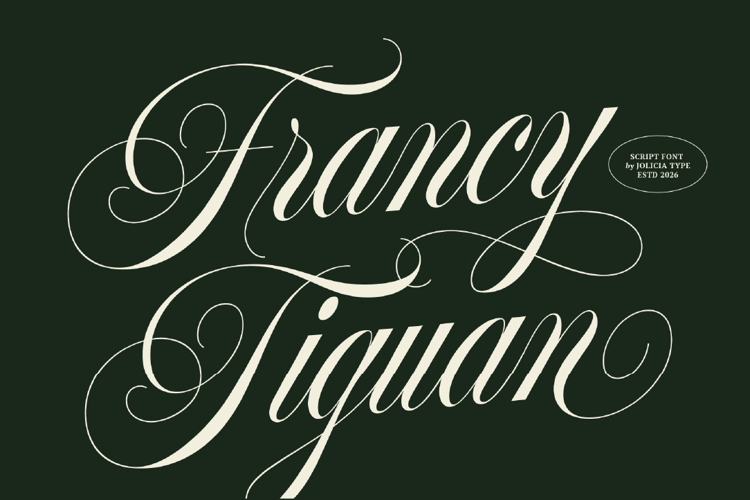
Francy Tiguan Font
Francy Tiguan is a classy script font inspired by elegant
calligraphy and modern luxury aesthetics. Featuring flowing
swashes, graceful curves, and refined handwritten letterforms,
this sophisticated typeface is perfect for wedding invitations,
feminine branding, beauty packaging, fashion editorials, luxury
logos, social media content, and premium typography projects.
Francy Tiguan delivers a romantic, chic, and timeless visual
style that elevates every creative design composition.